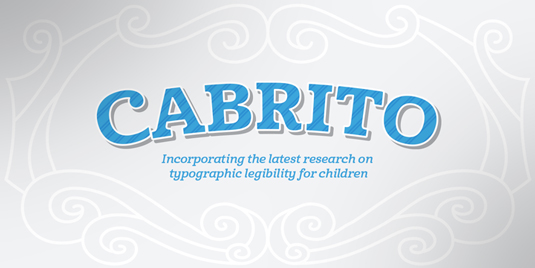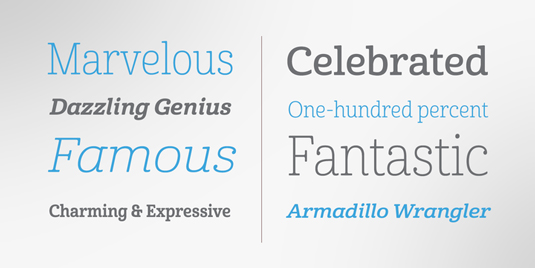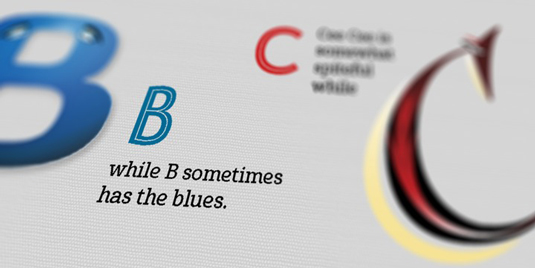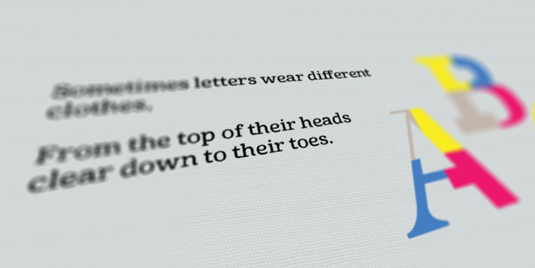
Font of the day: Cabrito
Every day we showcase the best fonts on the web. Today it's Cabrito by Jeremy Dooley.
Cabrito by Jeremy Dooley
Wanting to introduce his son to the world of fonts, designer Jeremy Dooley set about making a board book to teach about typography, called The Clothes Letters Wear. The children's book included this cutom made font Cabrito. "This new serif typeface incorporates the latest research on typographic legibility for children, features to make it - well, extra legible," Dooley explains.